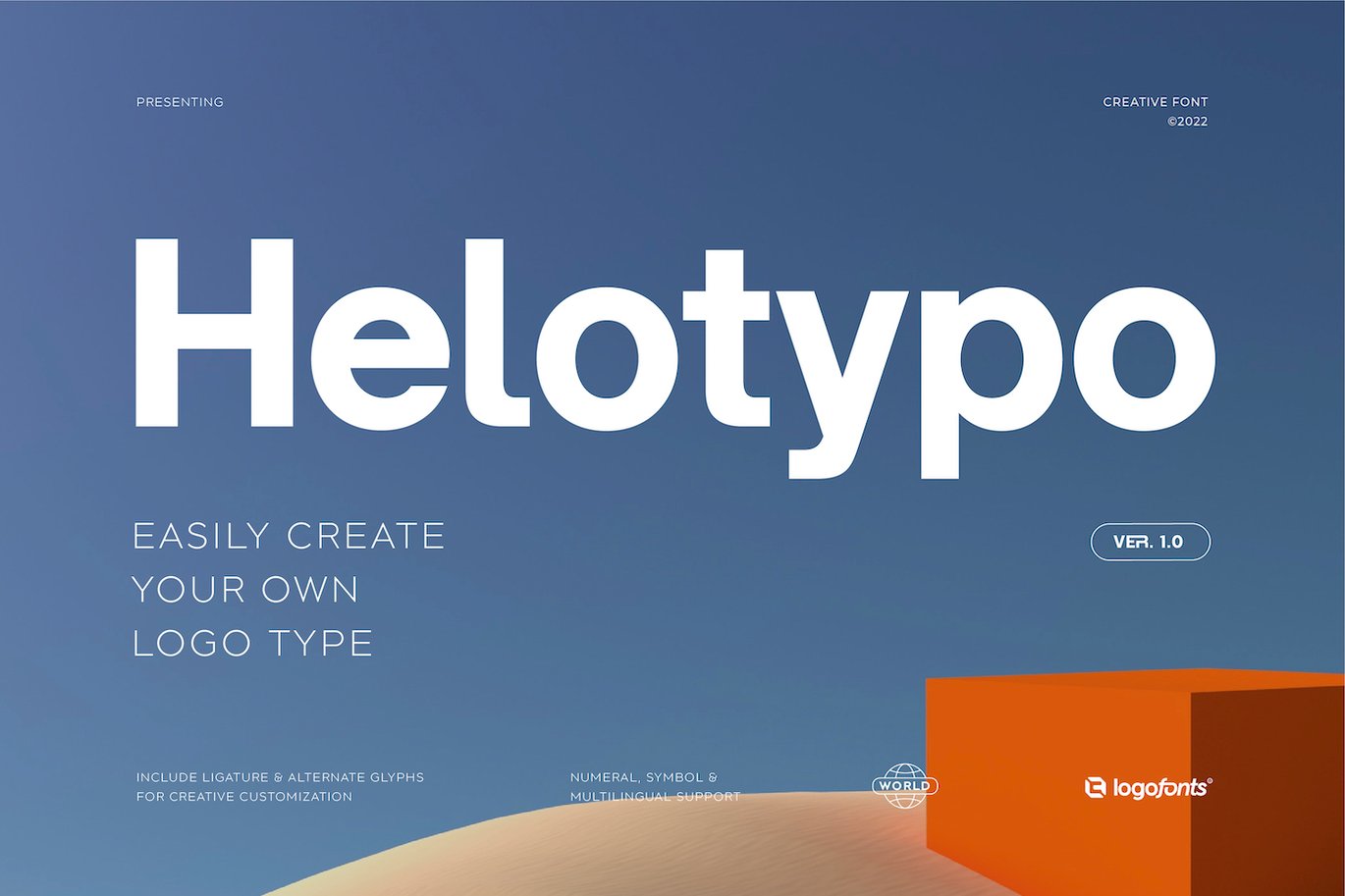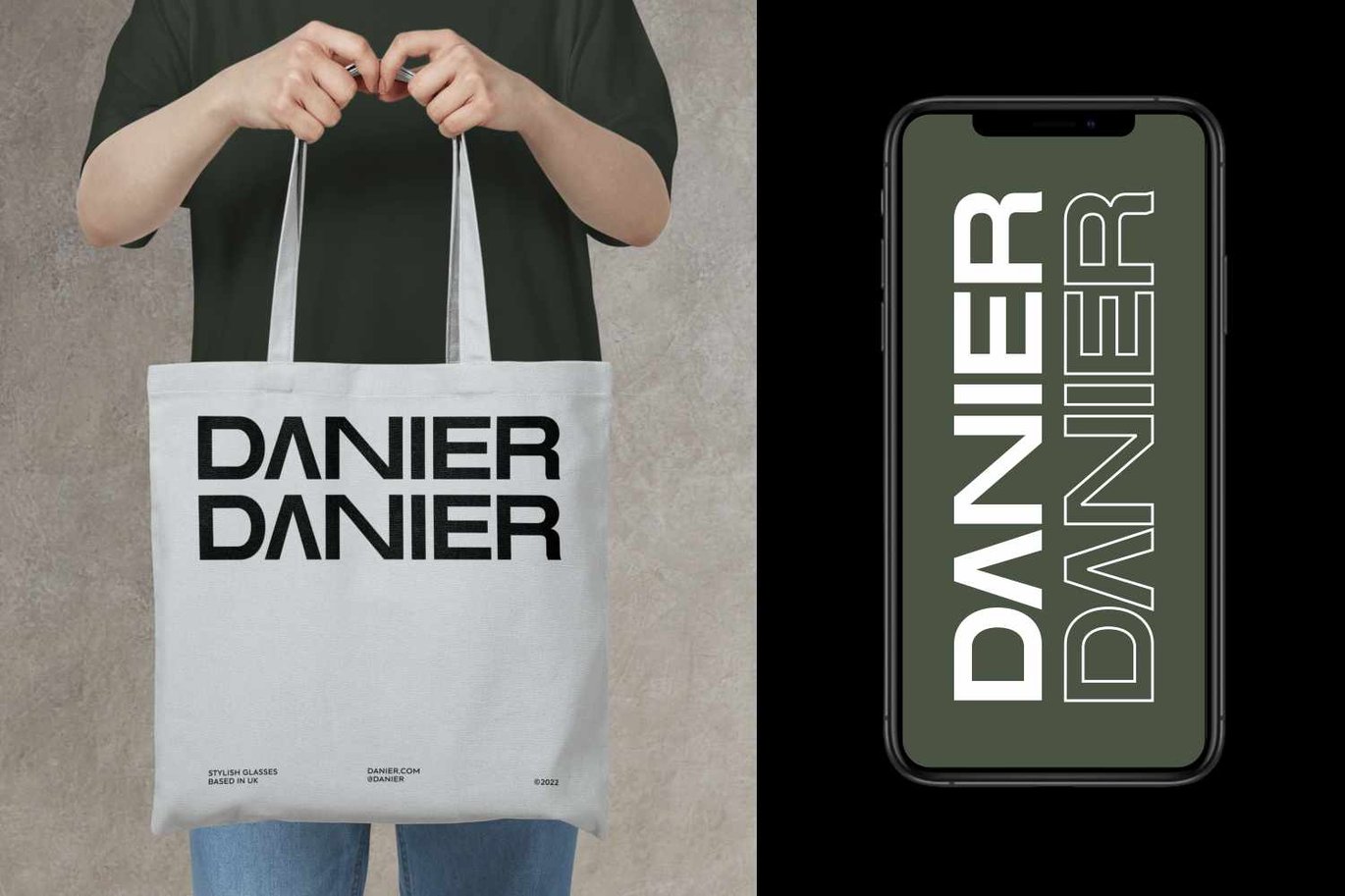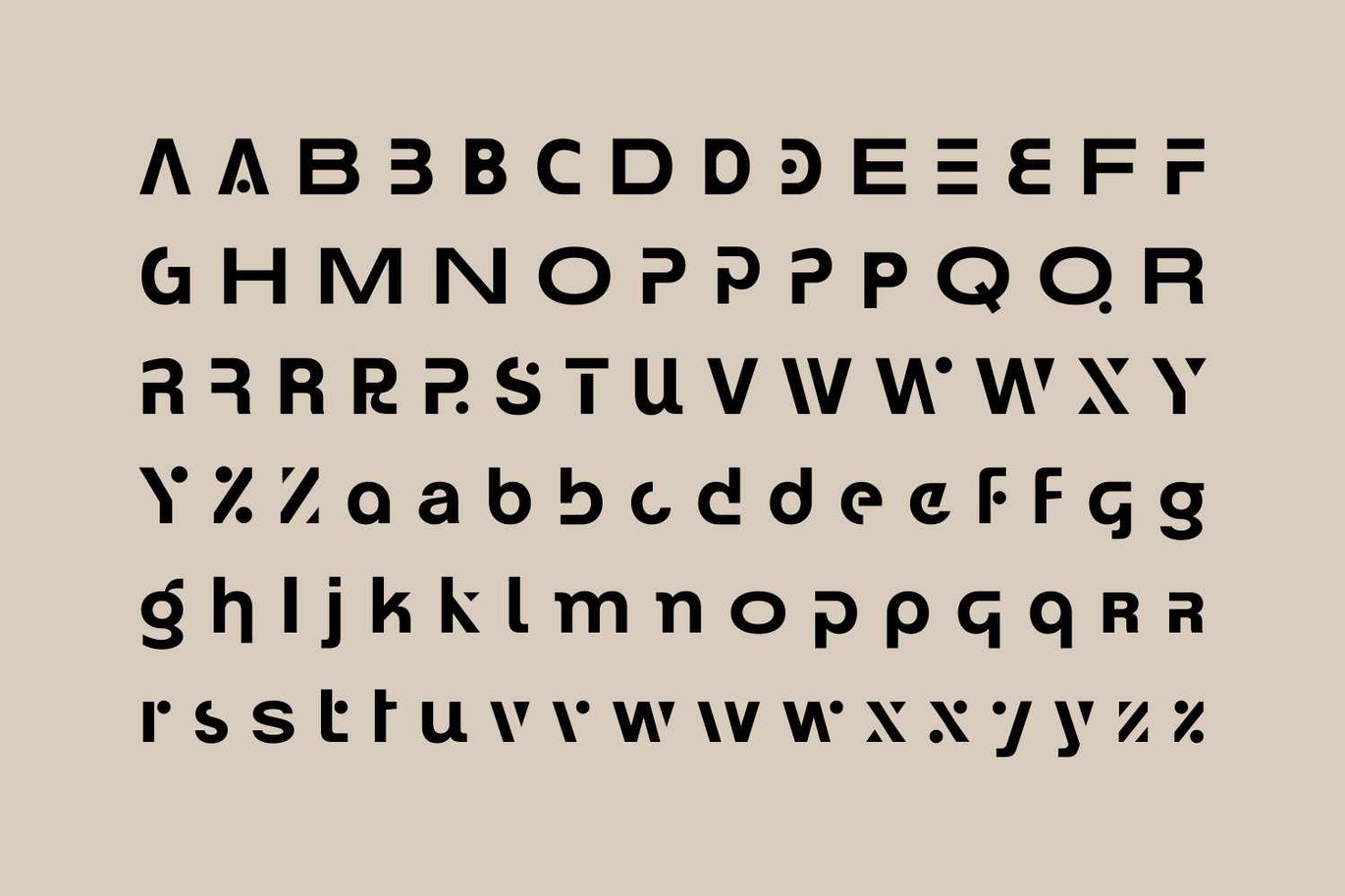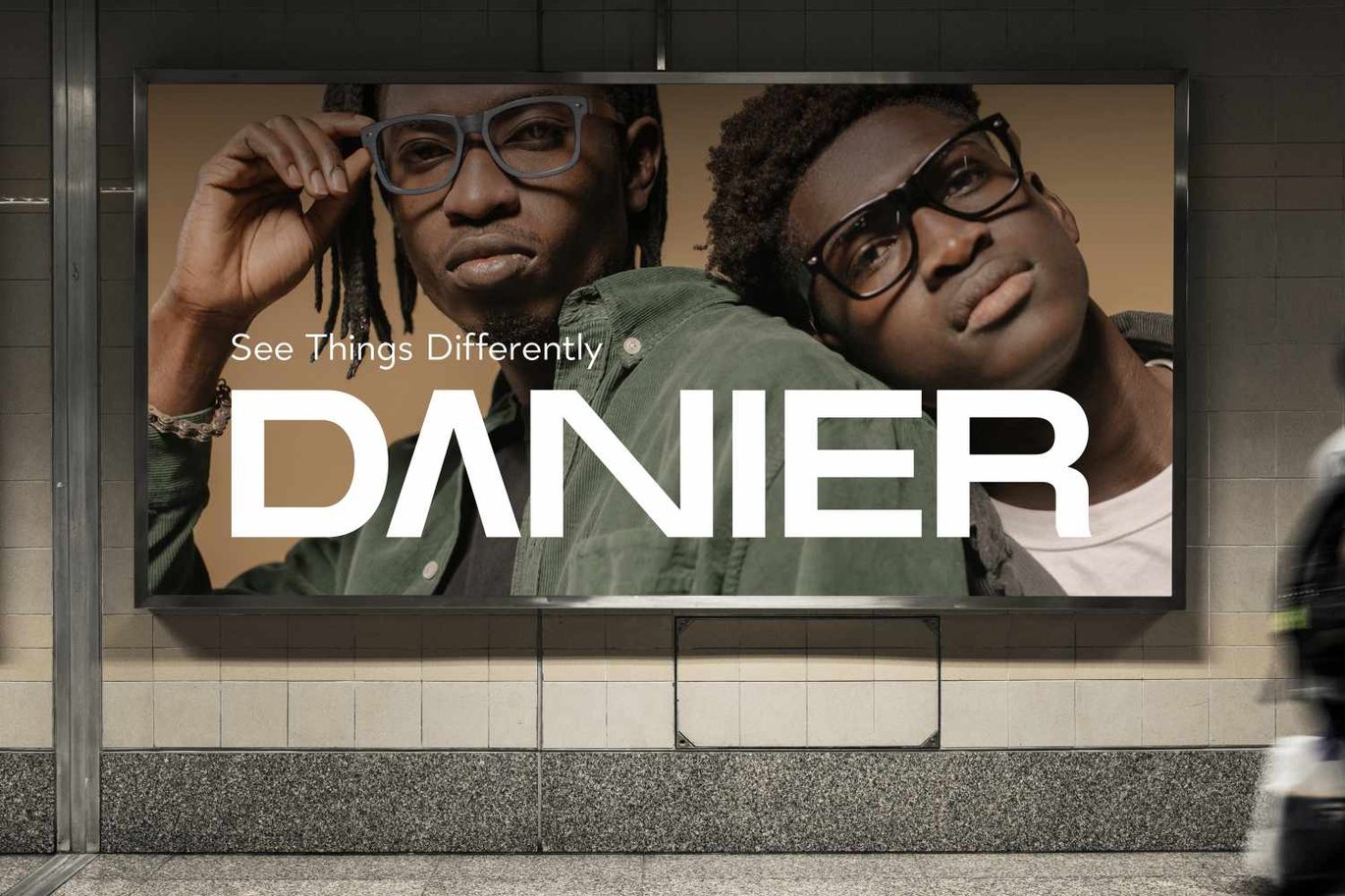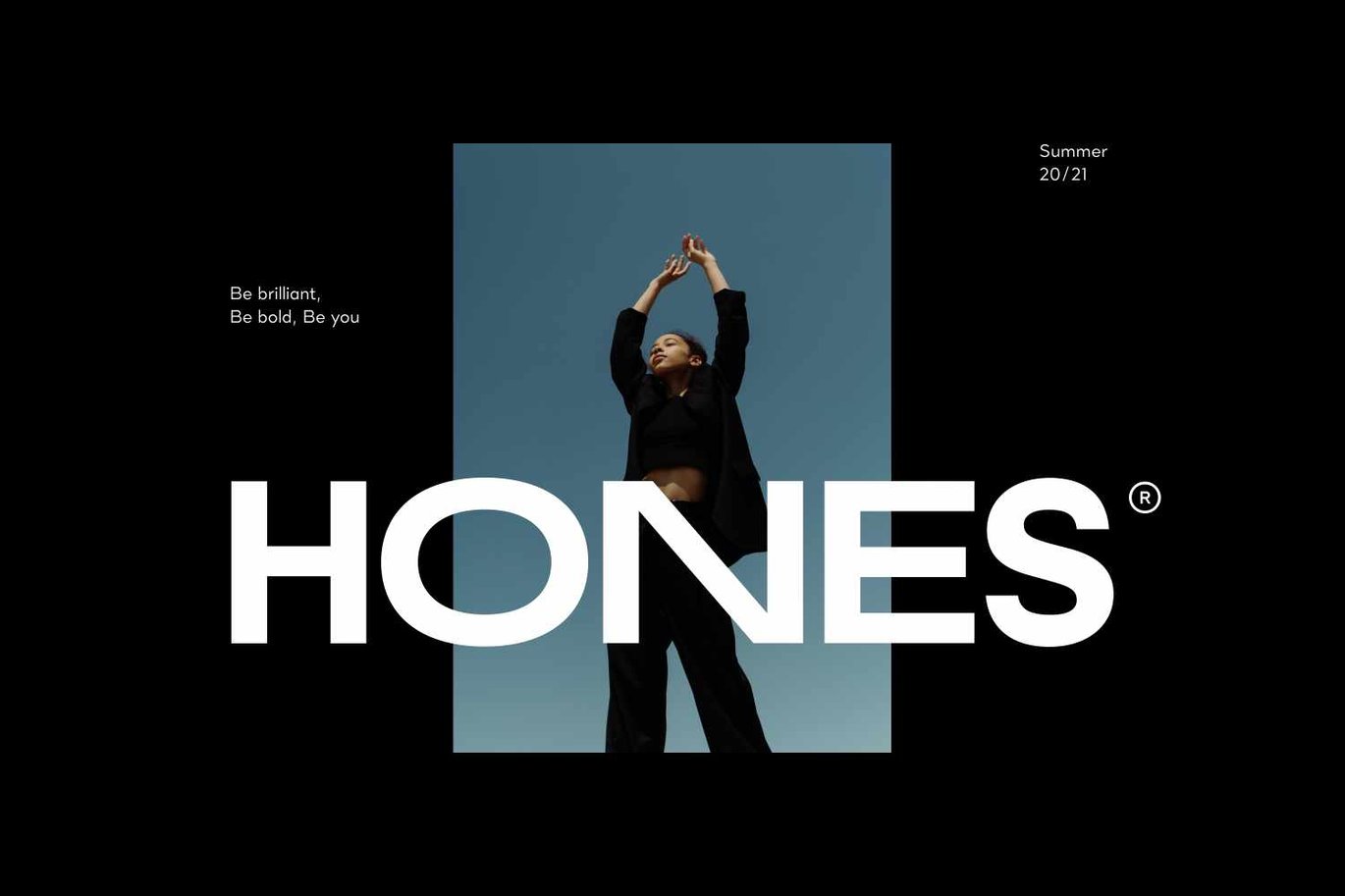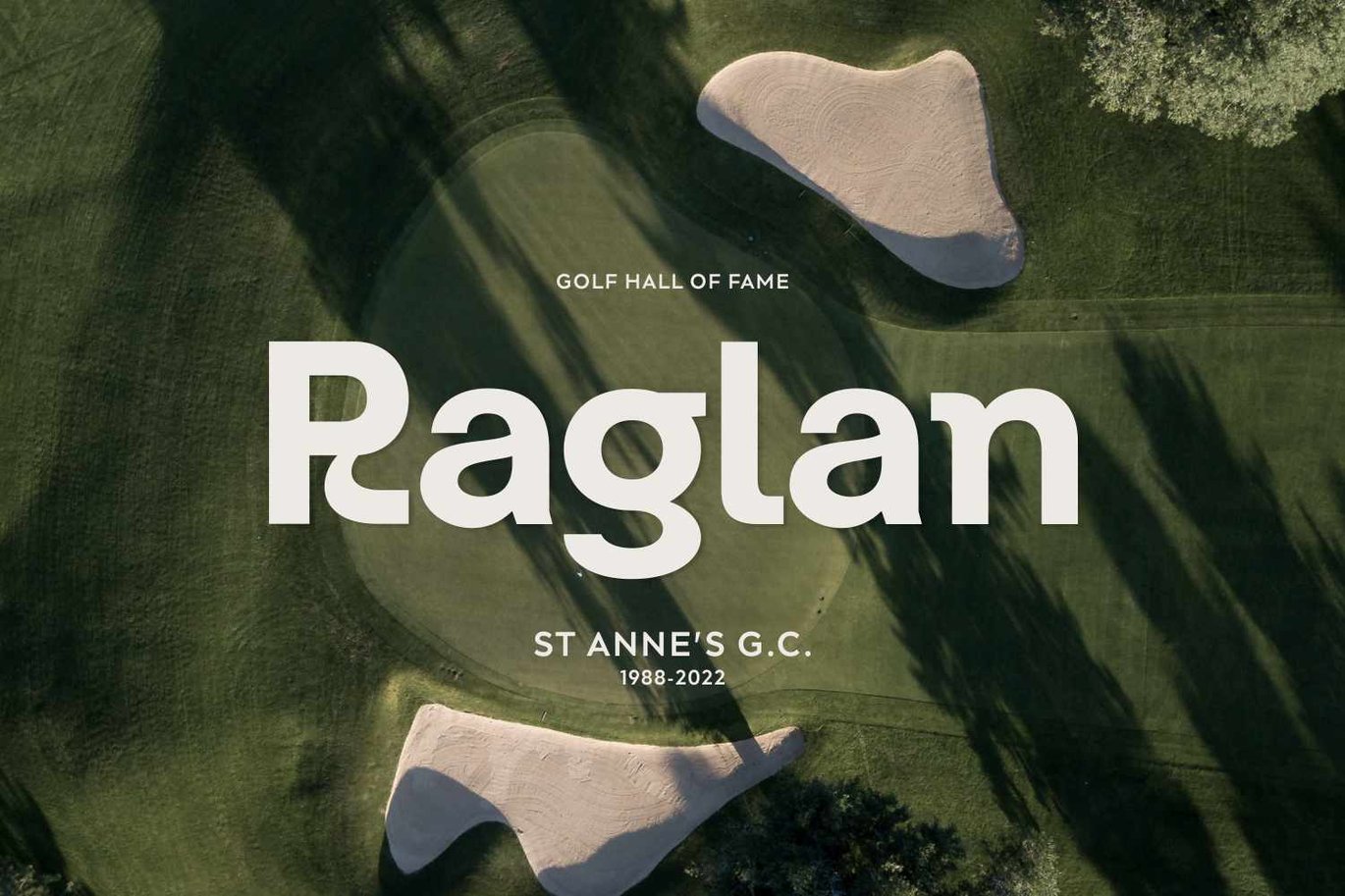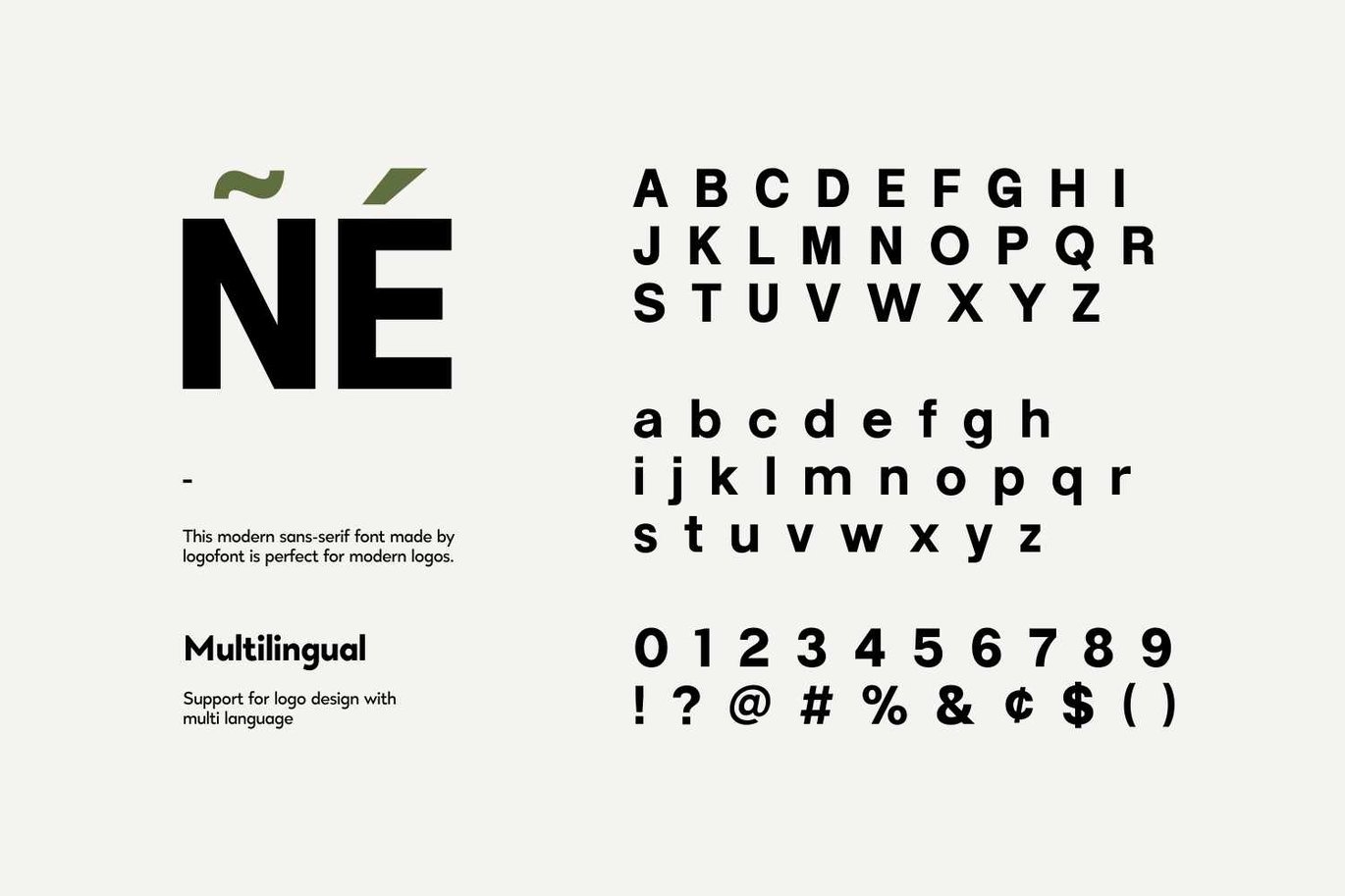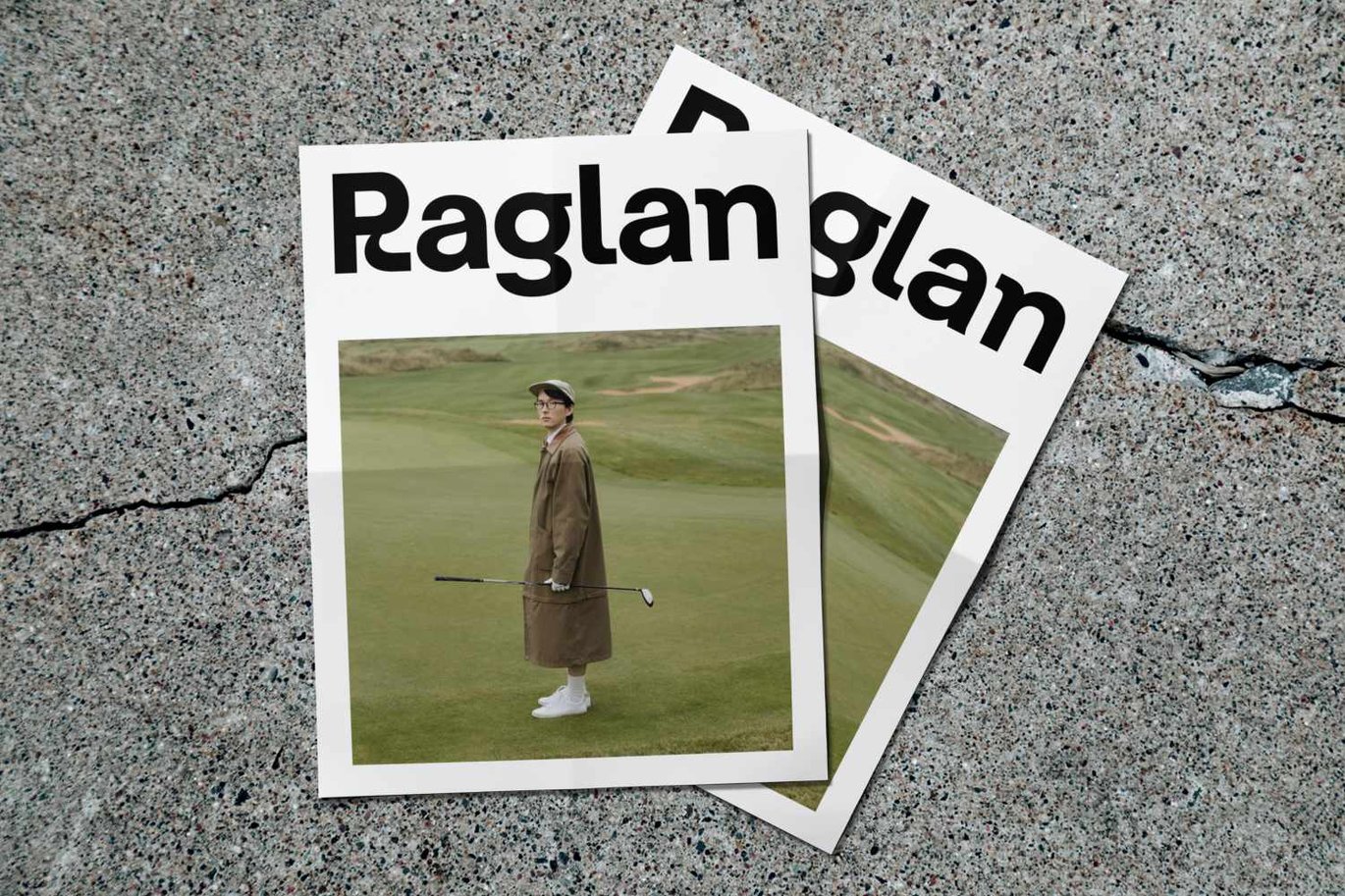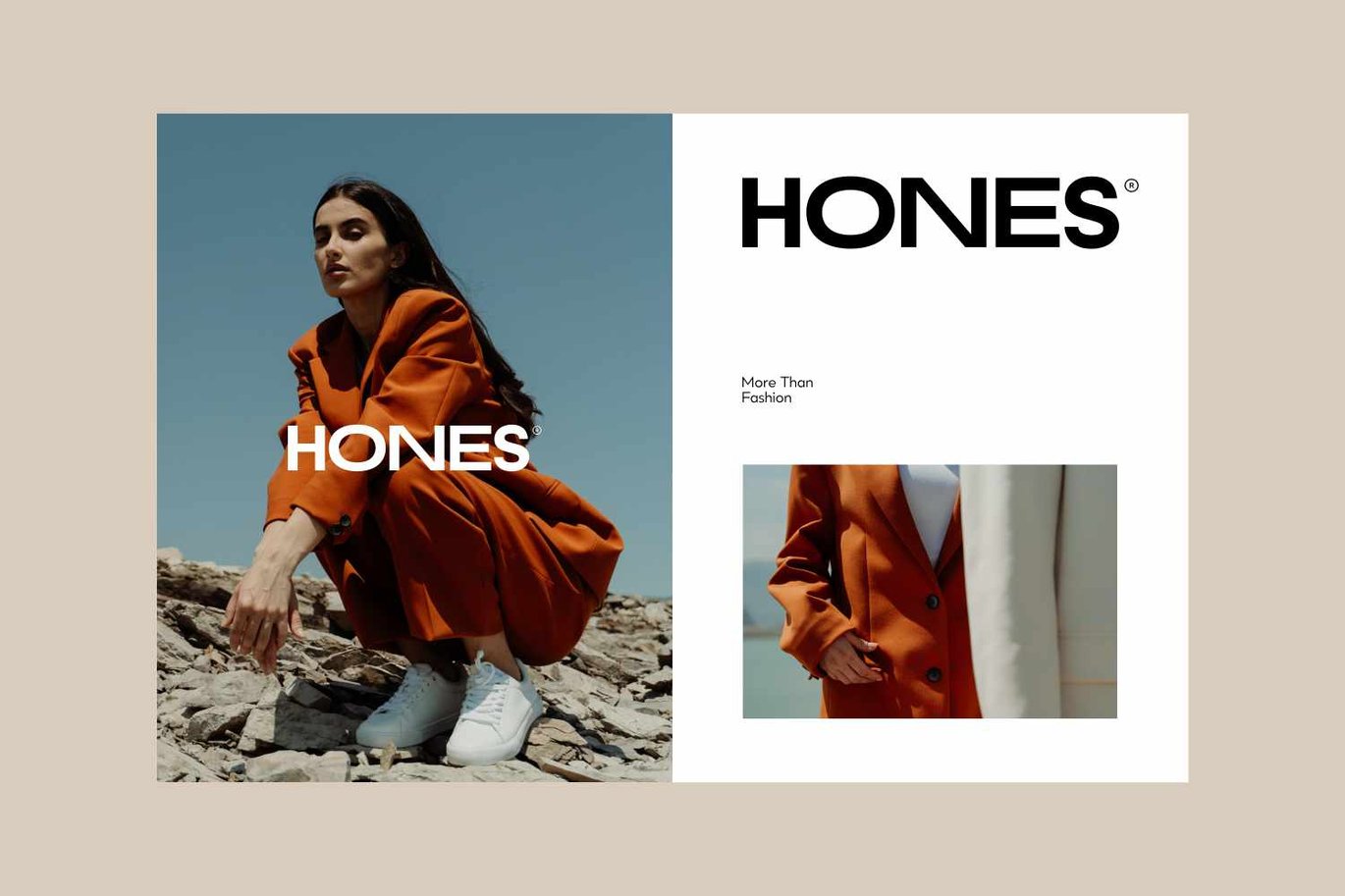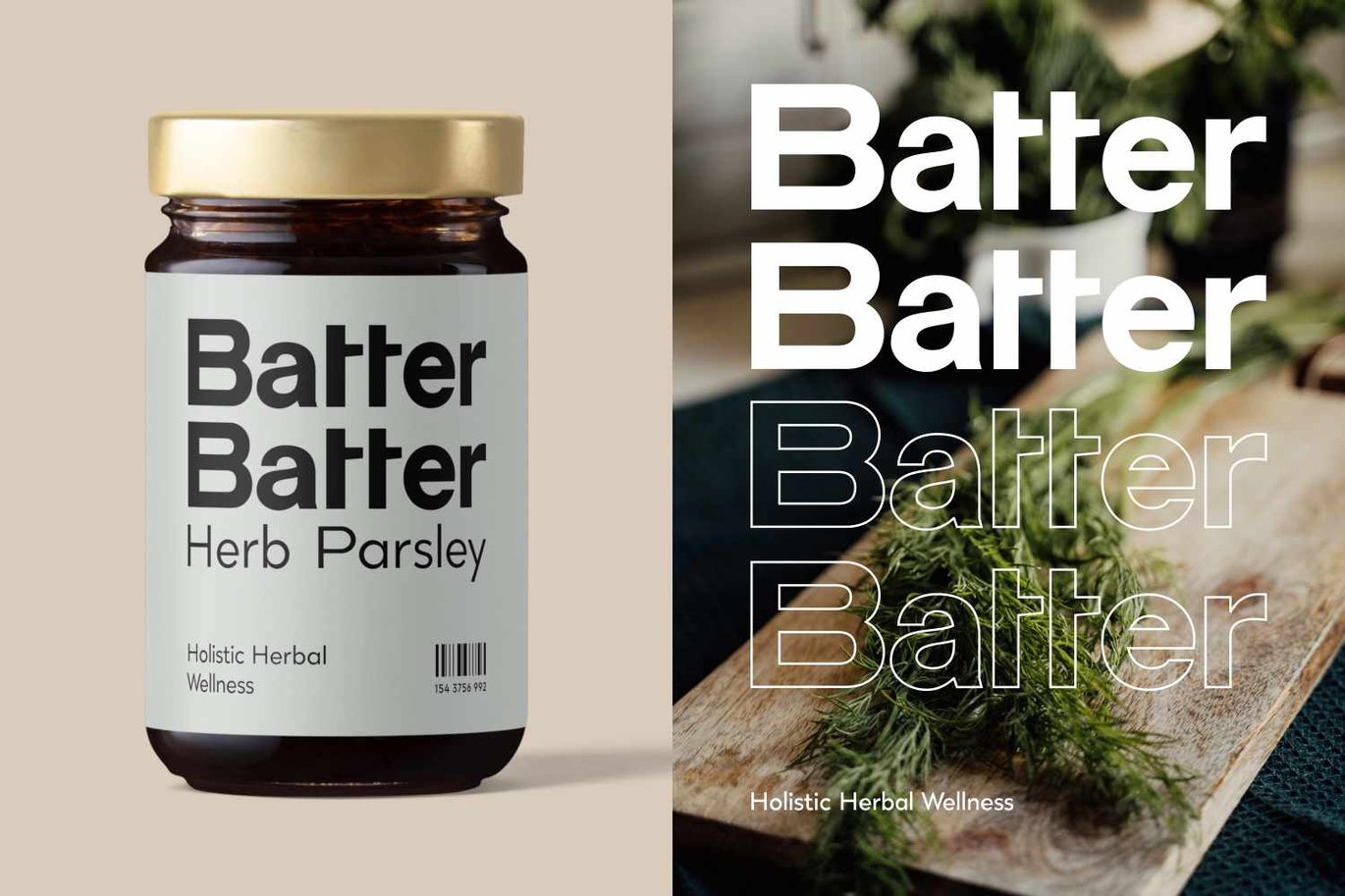
Helotypo – Modern Font
Helotypo is Sans Serif fonts great for product logo, poster, headline, card logo, web, magazine, packaging, stationery and much more. Easily creates your own logo type with fonts. Helotypo has an Open Type feature to access a large selection of unique alternative letters and many ligatures to make it easier for you to create.